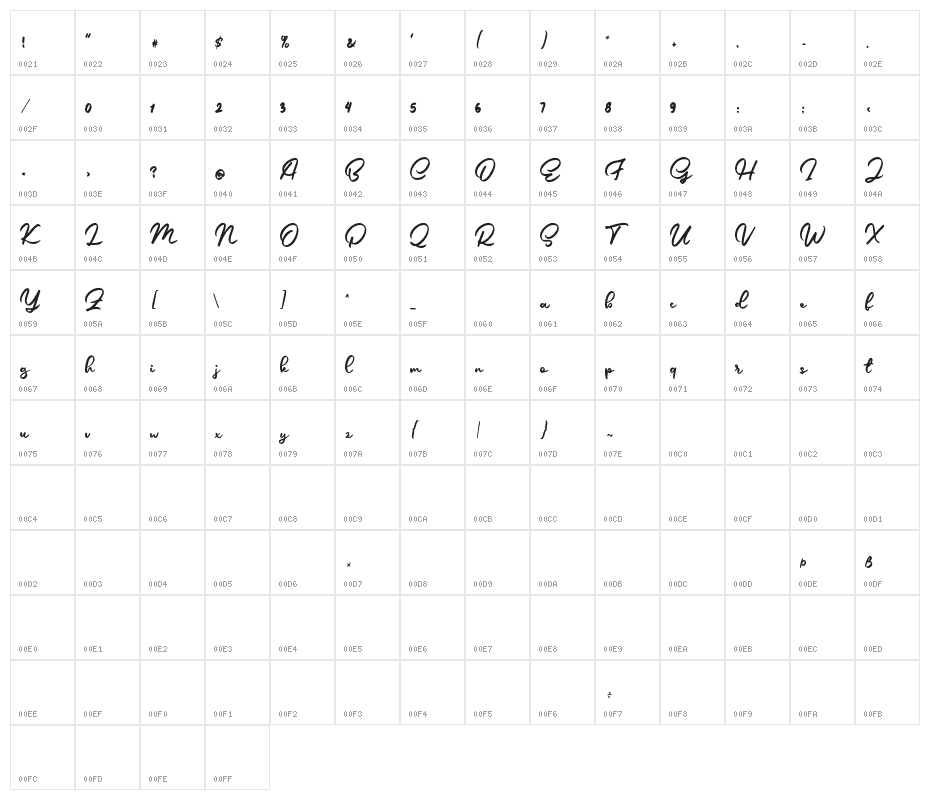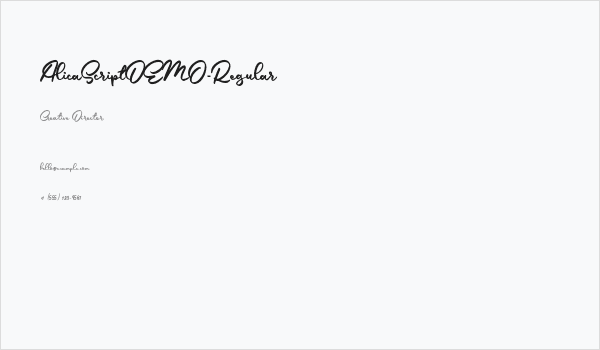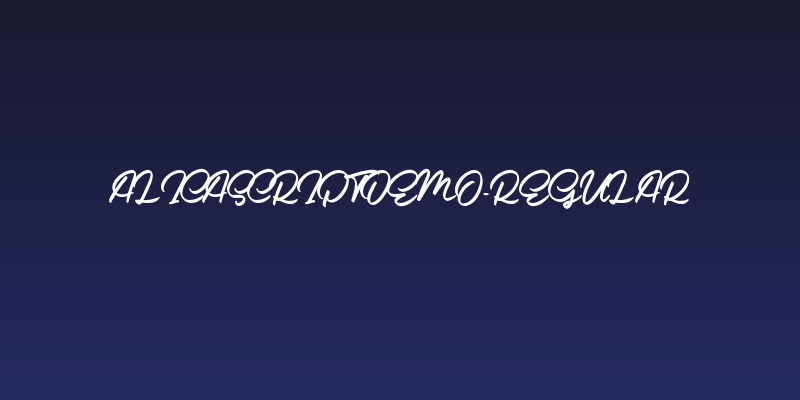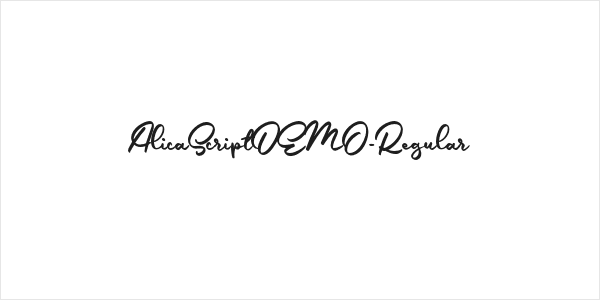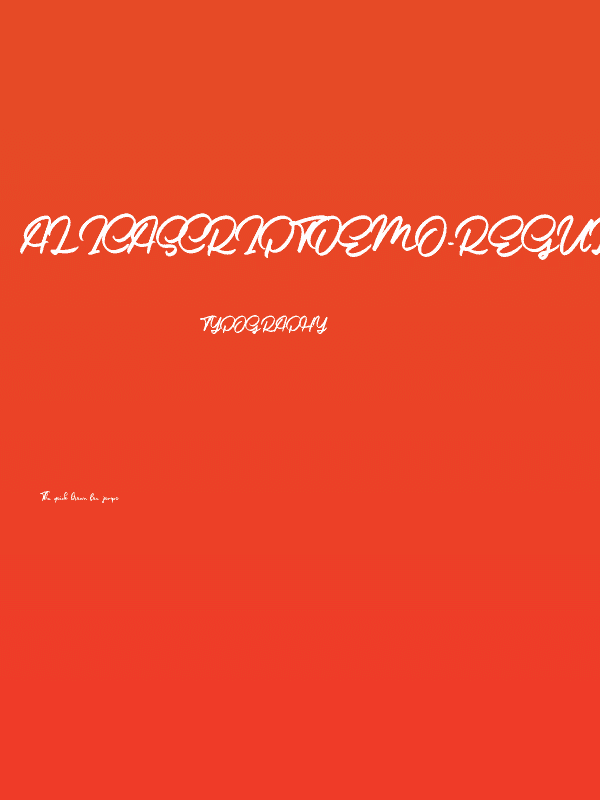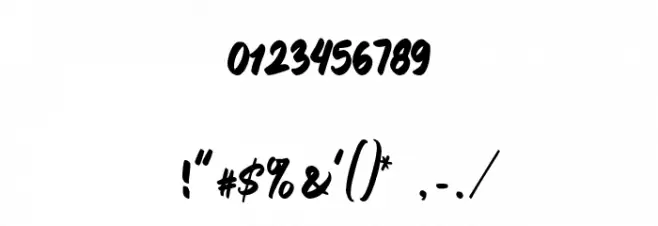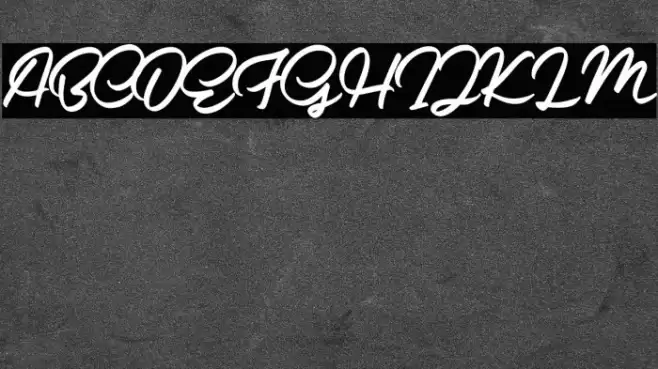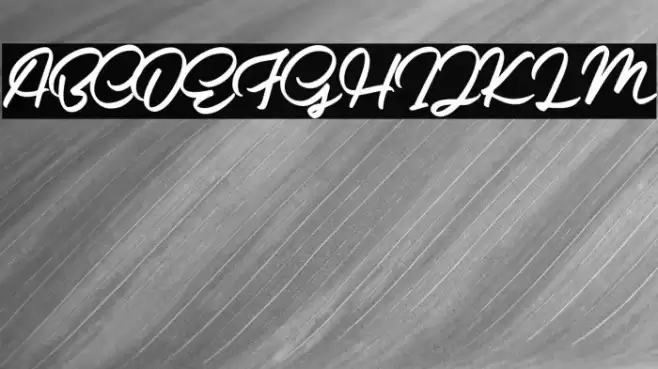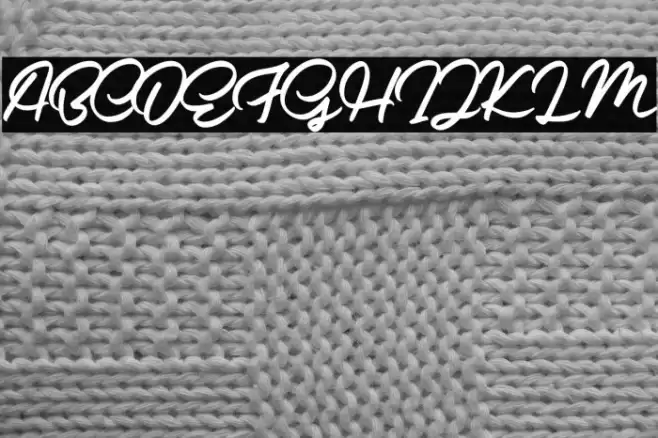
AlicaScriptDEMO-Regular Font
AlicaScriptDEMO-Regular Description
This font exudes a lively and elegant script style, characterized by its fluid and connected letterforms. The uppercase letters are bold and sweeping, with a dynamic flow that captures attention. The lowercase letters maintain a consistent rhythm, offering a harmonious blend of curves and loops. The numerals are clear and well-defined, complementing the overall aesthetic. Special characters are thoughtfully integrated, enhancing the font's versatility. Its design is reminiscent of handwritten calligraphy, making it suitable for projects that require a personal touch.